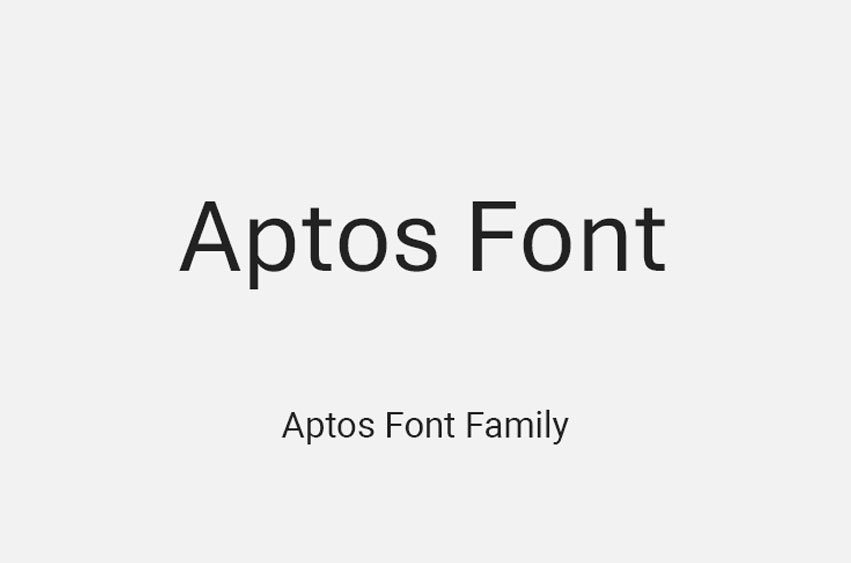
Aptos Family Font is a geometric and clean sans serif typeface inspired by the mid-20th century Swiss calligraphy. It features sharp edges, and accurate connections between straight and curved strokes. This gives it an organised and neat look ensuring legibility and clarity in thick text. Created by Steve Matteson, this typeface is simple and functional.
It works well for headlines, body text, and titles. It comes with 6 weights from Light to Black. Aptos also features oblique styles, compact and display versions for saving space. It supports Greek, Latin, Cyrillic and Vietnamese scripts.